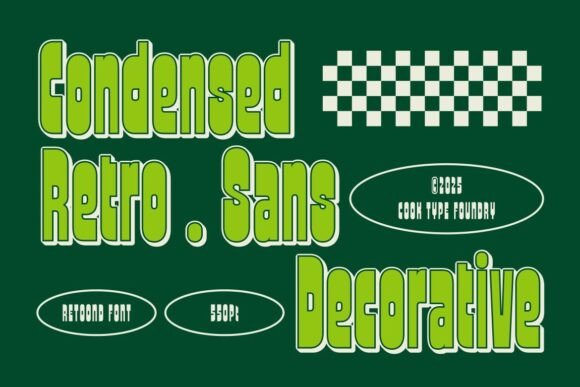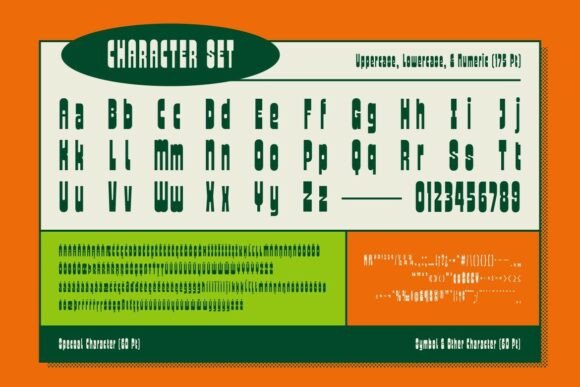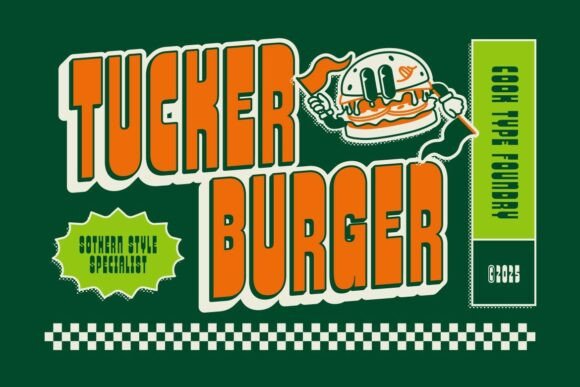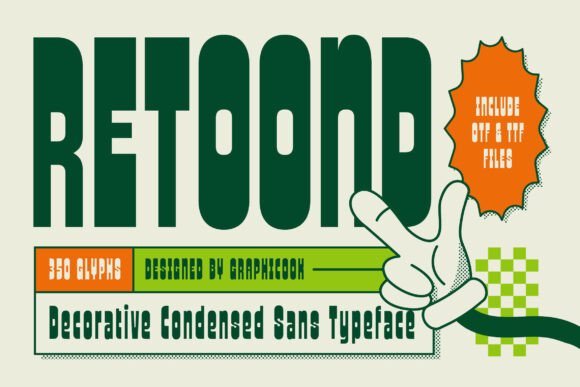
Introduction to Retoond Font
Retoond is a display sans-serif font with a retro style.
Its eye-catching font makes it perfect for logos, posters, and other projects that call for bold, standout typography It is perfect for headlines, logotypes, magazines, packaging, quotes, movies, games, cover albums, book covers, and flyers.